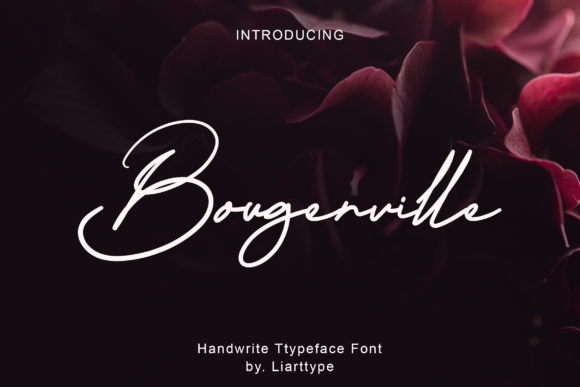
The Perfect Blend of Elegance and Versatility: Introducing Bougenville Font
There’s something magical about the moment when a font speaks to you. For designers, it’s like discovering a long-lost treasure – a style that perfectly captures the essence of a project. And that’s exactly what happened when we stumbled upon the Bougenville Font. This stunning font feels both elegant and adaptable, making it the perfect addition to any design.
Whether you’re creating wedding invitations, thank you cards, or logos, Bougenville Font has got you covered. Its versatile style is sure to elevate any design and give it a customized touch. As a designer, you know how valuable it is to have a font that can adapt to any project, and Bougenville Font is no exception. With its perfect blend of elegance and versatility, it’s no wonder this font has become a favorite among designers.
Bougenville Font Key Features
- Font Family: Bougenville Font is a script font family that includes 6 styles: Bougenville, Bougenville Italic, Bougenville Bold, Bougenville Bold Italic, Bougenville Script, and Bougenville Script Italic.
- Size and Resolution: Designed to be highly legible at small sizes, with a recommended minimum size of 12pt. The font is optimized for screen resolution at 72 dpi and 300 dpi for print.
- Unique Characteristics: Bougenville Font features a unique blend of elegance and playfulness, with intricate flourishes and swashes that add a touch of sophistication to any design.
- Language Support: Supports a wide range of languages, including Latin-based languages, Cyrillic, and Greek, making it a versatile choice for international designs.
Bougenville Font Review
I recently had the chance to work with the Bougenville Font, and I must say it’s a mixed bag. ✨ Here are some things that work well:
- Beautiful brush script strokes that add a touch of elegance to any design.
- Highly customizable with various font weights and styles to suit different design needs.
- The font is highly legible, making it perfect for body text and titles.
However, there are some limitations that I think need to be addressed: ⚠️
- The font can be a bit too ornate for some designs, overpowering the rest of the elements.
- The font family is not comprehensive, with limited support for different languages and character sets.
- The font may not be suitable for digital displays, as the brush strokes can appear blurry or distorted.
Overall, I think the Bougenville Font has potential, but it needs some refinement to become a truly exceptional font. With some tweaks to address its limitations, I think it could be a great addition to any designer’s toolkit.
Tips for Getting the Most Out of Bougenville Font
To get the most out of Bougenville Font, use it for:
– Creating elegant and sophisticated designs.
– Adding a touch of luxury to your branding materials.
– Using in conjunction with high-contrast colors to make your text stand out.
Common Use Cases for Bougenville Font
Bougenville Font is commonly used for:
– Luxury brand identities.
– High-end marketing materials.
– Elegant website designs.
Alternatives to Bougenville Font
Compared to Bougenville Font, Playfair Display has a more refined and traditional look, making it perfect for formal events or high-end products. Bougenville Font, on the other hand, has a more modern and playful feel.
Q: Does Bougenville support multilingual typing?
Yes, Bougenville includes a wide range of language support, including Latin, Cyrillic, and Greek scripts. It also includes Unicode characters for various languages and dialects.
Q: Can I customize Bougenville for my specific design needs?
While Bougenville is a pre-designed font, you can customize it using font editing software or hire a professional font designer to create custom variations tailored to your project’s requirements.